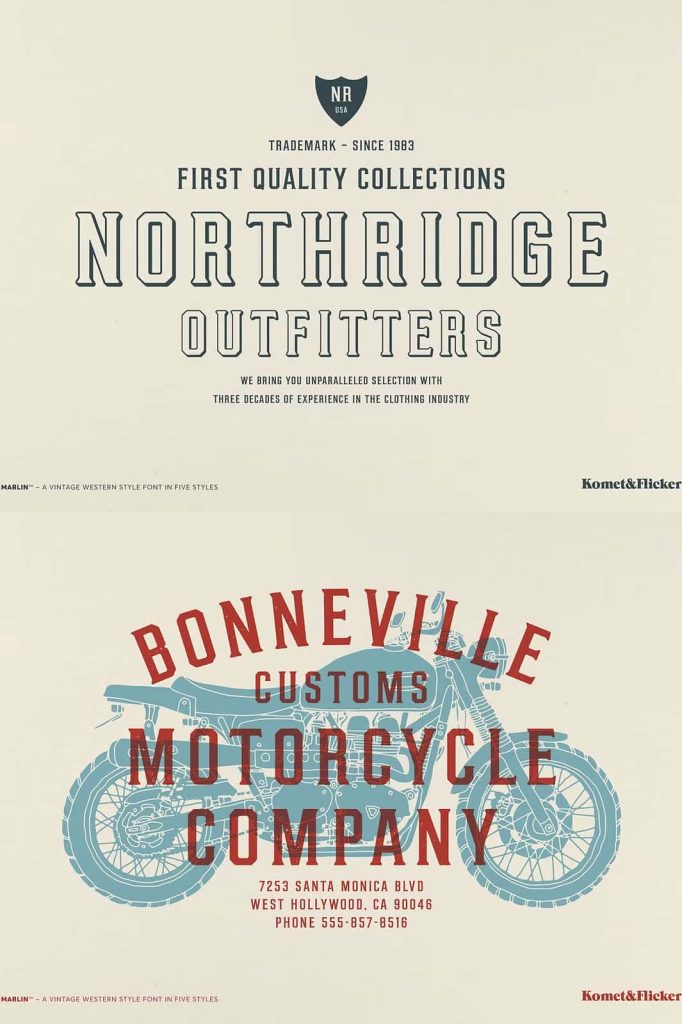
Marlin: A Western Vintage Display Font with Timeless Character
Marlin is a vintage-style, Western-inspired condensed display font designed to deliver strong visual impact with classic appeal. Rooted in the rugged spirit of the Wild West and influenced by the craftsmanship of old-time signage, Marlin brings history, personality, and confidence into modern typography. Its bold structure and refined details allow designers to communicate authenticity and strength while maintaining an elegant, well-balanced appearance.
This typeface captures the essence of a bygone era without feeling outdated. Marlin bridges traditional Western aesthetics with contemporary usability, making it a versatile and dependable choice for a wide range of creative projects. It speaks directly to audiences who value heritage, craftsmanship, and timeless design.
Inspired by Frontier Spirit and Classic Signage
The design of Marlin draws inspiration from the visual language of the American frontier. Hand-painted signs, carved wooden lettering, and early commercial typography all influence its condensed form and expressive details. These references give the font a sense of history and authenticity that feels grounded and believable.
The intricate craftsmanship found in vintage signage plays a key role in Marlin’s character. Each letterform reflects careful construction, allowing the font to feel both rugged and refined. This balance ensures that Marlin delivers strong personality without sacrificing clarity or professionalism.
A Condensed Display Font Built for Impact
As a condensed display font, Marlin is designed to command attention. Its narrow proportions allow designers to create bold headlines and titles while conserving space. This makes it especially effective for logos, posters, packaging, and merchandise where visual impact is essential.
Despite its condensed structure, Marlin maintains excellent readability. The carefully shaped letterforms ensure that text remains clear and legible, even when used in dense layouts or large-scale applications.
Rugged Charm Balanced with Timeless Elegance
Marlin excels at blending rugged charm with subtle elegance. The Western influence gives the font a strong, confident presence, while its refined detailing adds sophistication. This combination allows Marlin to adapt to a wide range of design styles, from rustic and vintage to modern and minimalist.
The font’s balanced weight and thoughtful spacing help create a smooth visual rhythm across words and lines. This makes Marlin visually pleasing in both short headlines and extended display text, ensuring consistency throughout the design.
Designed for Brands with Character
Marlin is an excellent choice for businesses and brands seeking a rustic, old-world aesthetic. Its Western roots communicate authenticity, durability, and tradition, making it ideal for breweries, cafés, outdoor brands, apparel companies, and heritage-inspired businesses.
When used in branding, Marlin helps establish a strong visual identity that feels confident and memorable. Logos created with this font carry a sense of history and craftsmanship, reinforcing trust and credibility.
Versatile Across Logos, Packaging, and Merchandise
Marlin performs exceptionally well across a variety of design applications. In logo design, it delivers bold presence and clear recognition. In packaging, it adds character and storytelling value, helping products stand out on shelves and connect with customers.
The font also works beautifully on merchandise such as apparel, labels, and promotional items. Its Western-inspired style translates effectively to physical materials, maintaining clarity and impact across different printing methods.
Effective for Print and Digital Design
Marlin adapts seamlessly to both print and digital environments. In print, its bold letterforms reproduce cleanly and maintain their character on posters, signage, and packaging. In digital formats, the font remains legible and visually engaging on websites, social media graphics, and online promotions.
This adaptability ensures that designers can rely on Marlin for consistent branding and communication across multiple platforms.
A Typeface That Brings Nostalgia into Modern Design
Marlin succeeds in bringing nostalgia into modern design without relying on clichés. Its thoughtful construction and authentic references create a genuine vintage feel that resonates with contemporary audiences. This makes it an effective tool for storytelling through typography.
By combining Western heritage with modern design standards, Marlin allows designers to honor tradition while building fresh, relevant visuals. It provides a timeless foundation for creative projects that value character, history, and impact.
Strengthen Your Designs with Western Heritage
Marlin is more than a display font; it is a visual expression of frontier spirit and craftsmanship. Its condensed form, vintage inspiration, and balanced elegance make it a powerful choice for designers who want to create bold, meaningful work.
From logos and branding to posters, packaging, and merchandise, Marlin delivers consistent character and timeless appeal. It empowers designers to build visuals that feel authentic, confident, and rooted in Western tradition while remaining perfectly suited for modern design needs.